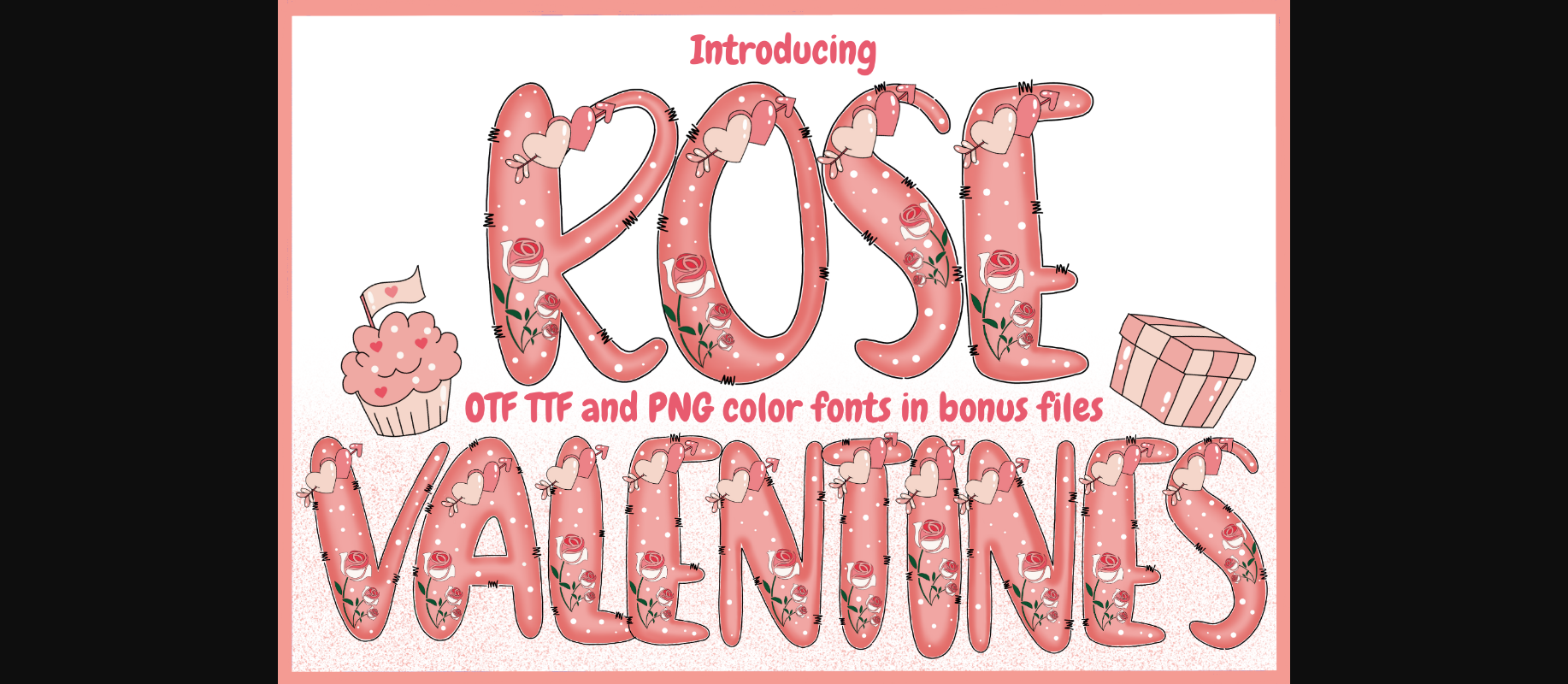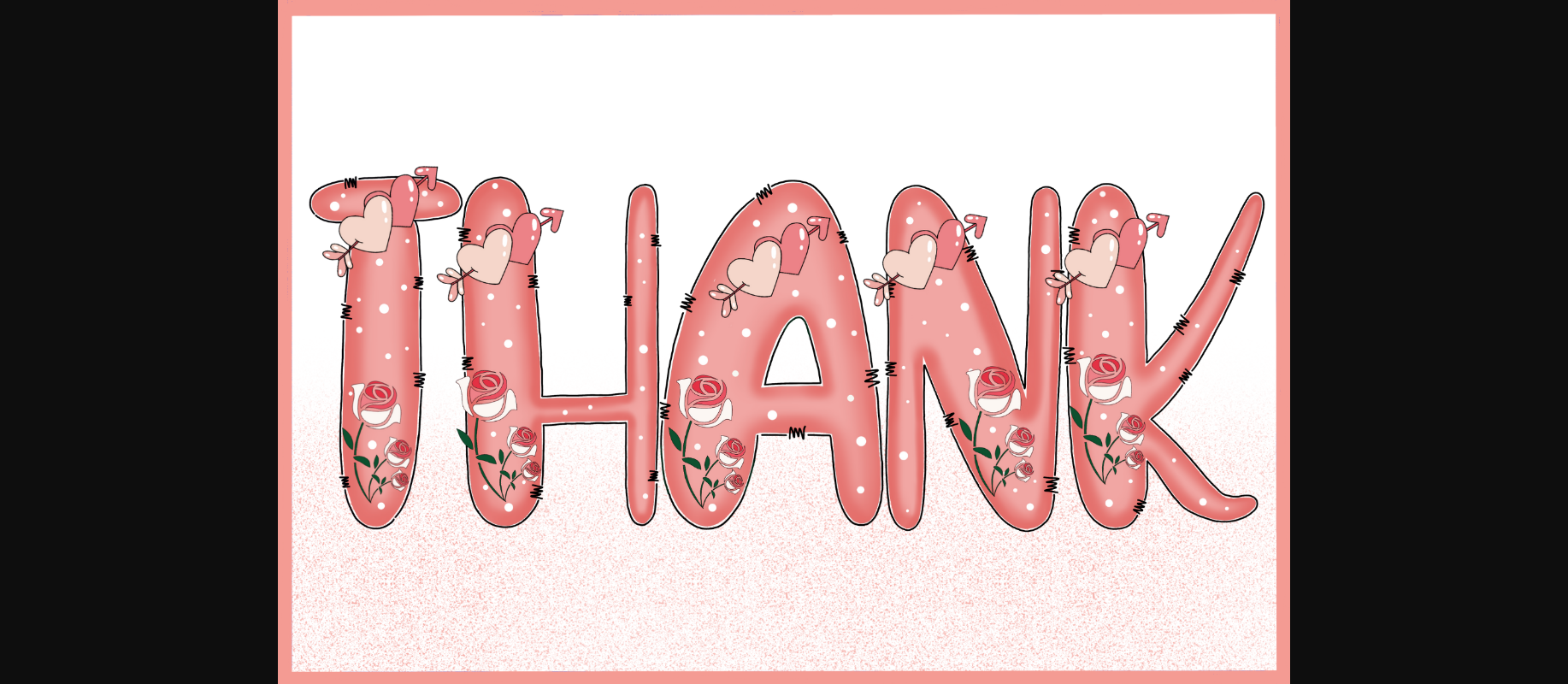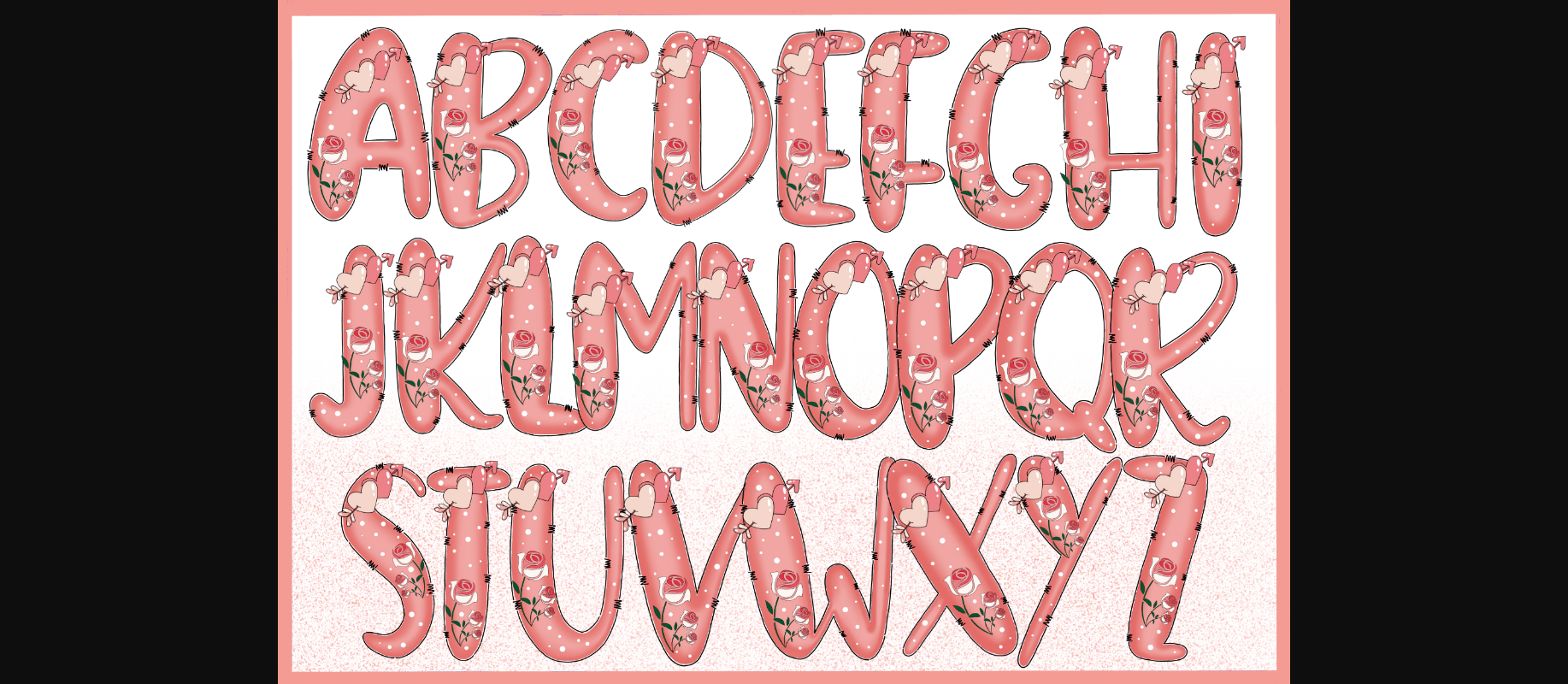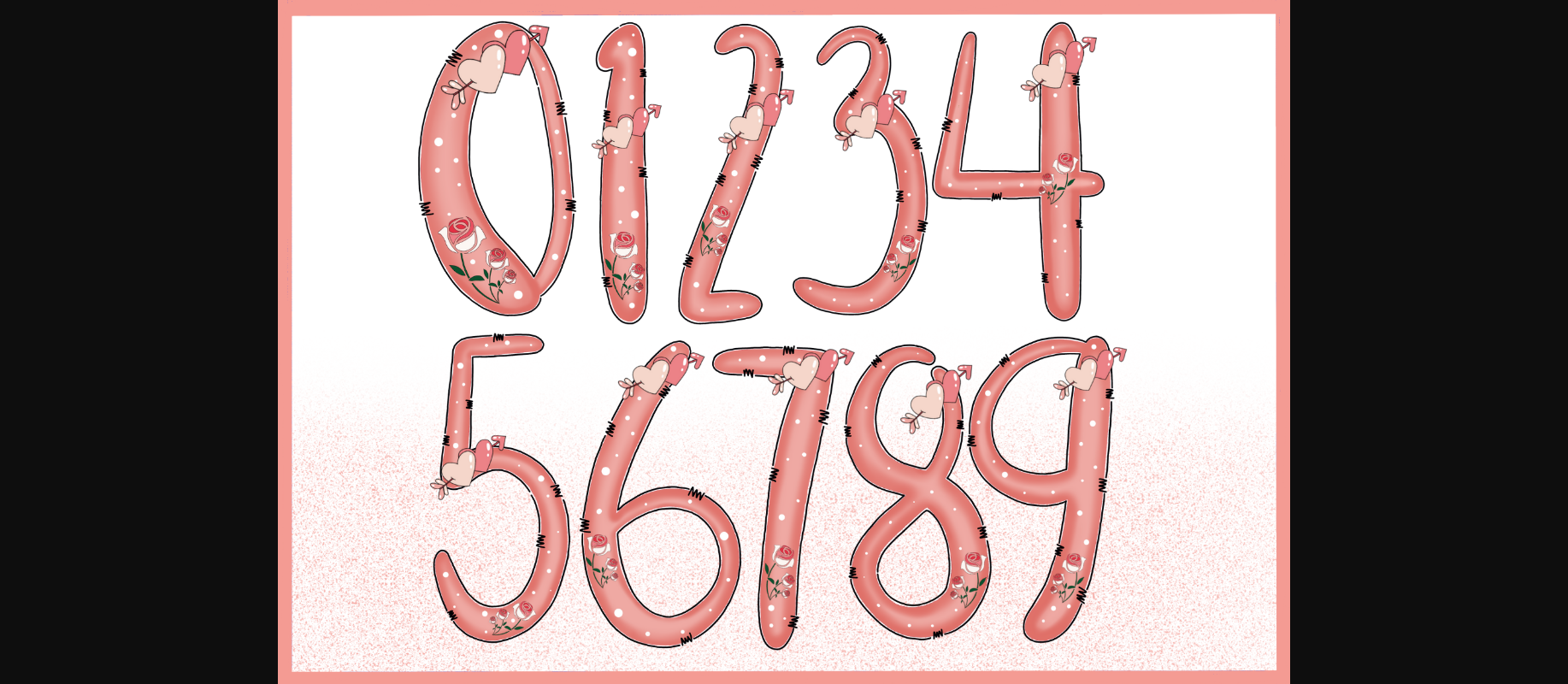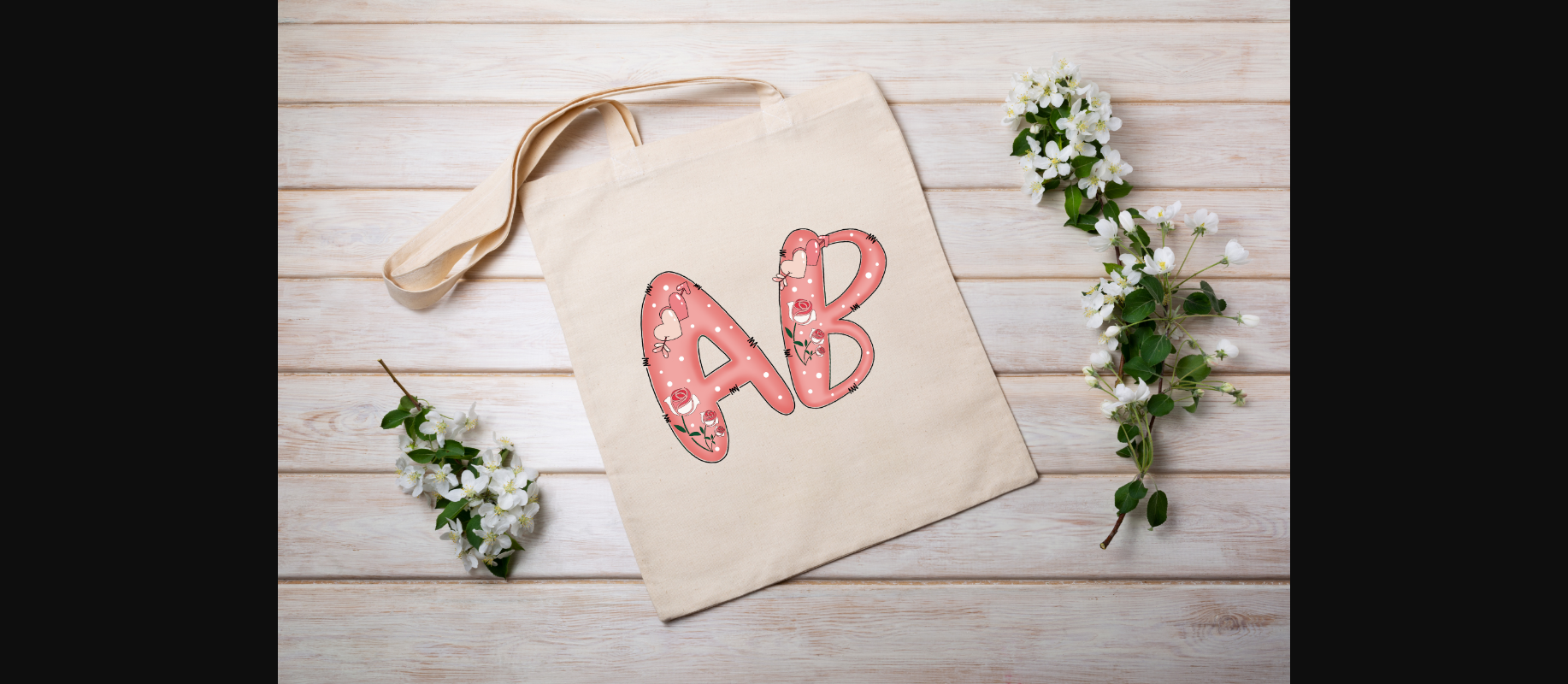
About Rose Valentines Font
Rose Valentines is a whimsical and decorative font that adds a touch of romance to your designs. Each letter is adorned with charming hearts and delicate roses, bringing a sweet and playful vibe to your projects. Perfect for Valentine’s Day cards, love notes, or any creative endeavor that calls for a hint of love and flair. Let Rose Valentines infuse your text with heartfelt charm and make your messages bloom with affection.